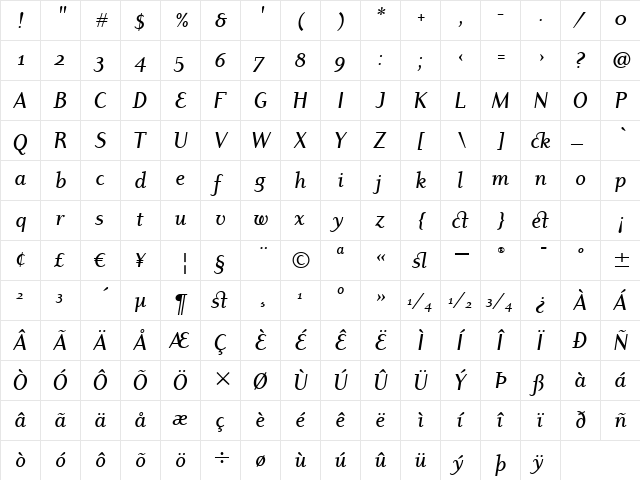
DyadisMdOSITC TT MediumItalic
| Foundry | International Typeface Corporation |
| Designer | Yvonne Diedrich |
Design Context for DyadisMdOSITC TT Typeface
DyadisMdOSITC TT offers clean, dependable letterforms without strong stylistic allegiance, making it a practical choice for designers who need flexibility. Its italic angle brings a sense of urgency and motion to the letterforms.